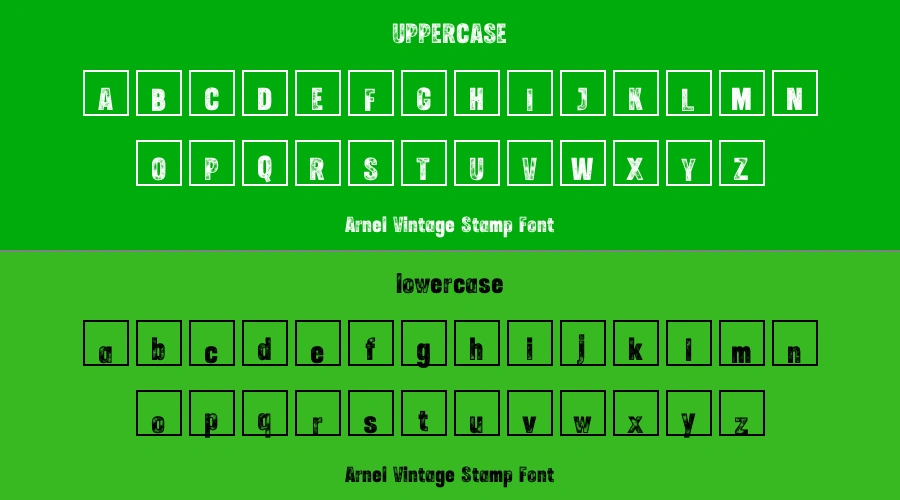
About Arnel Vintage Stamp Font
Designed with precision, Arnel Vintage Stamp Font merges hand-drawn quality with adaptability in every character. This versatility makes it particularly effective for traditional magazines, where authenticity and sophistication directly impact communication quality. Each letterform demonstrates meticulous craftsmanship.
Technical excellence shines through elements like commanding presence and brand signatures, enhancing typographic versatility. In running text settings, Arnel Vintage Stamp Font proves its worth through superior emotional response. The thoughtful execution of letterfit and historical reference ensures professional results.